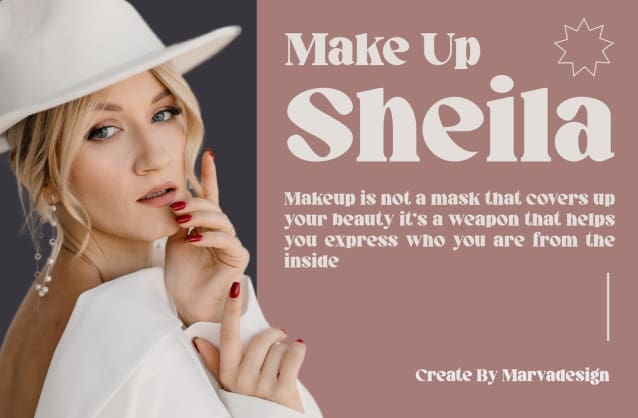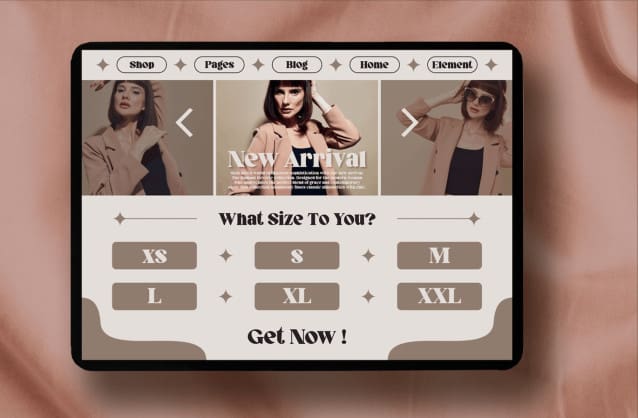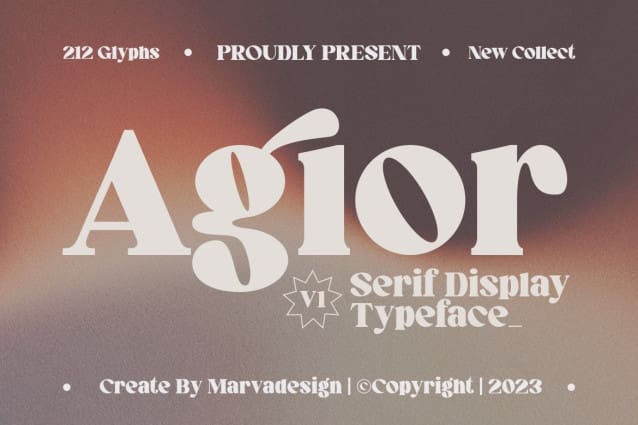
Agior Font
Agior Font, the font is suitable for any branding project like logo, Template Design, Product and many more. outstanding in a wide range of contexts.